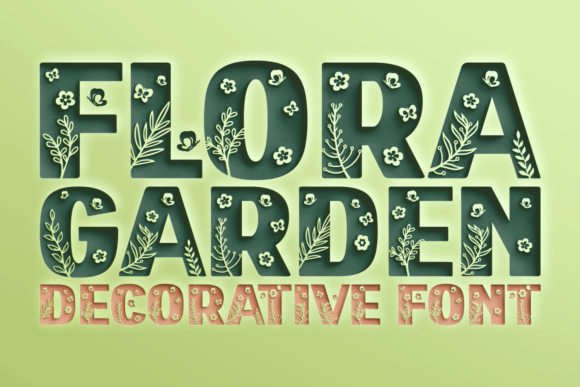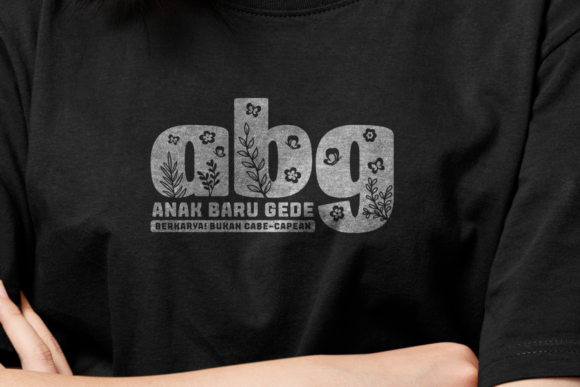
Flora Garden Font
Flora Garden is a beautiful and chic decorative font. No matter the topic, this font will be an incredible asset to your fonts’ library, as it has the potential to elevate any creation.